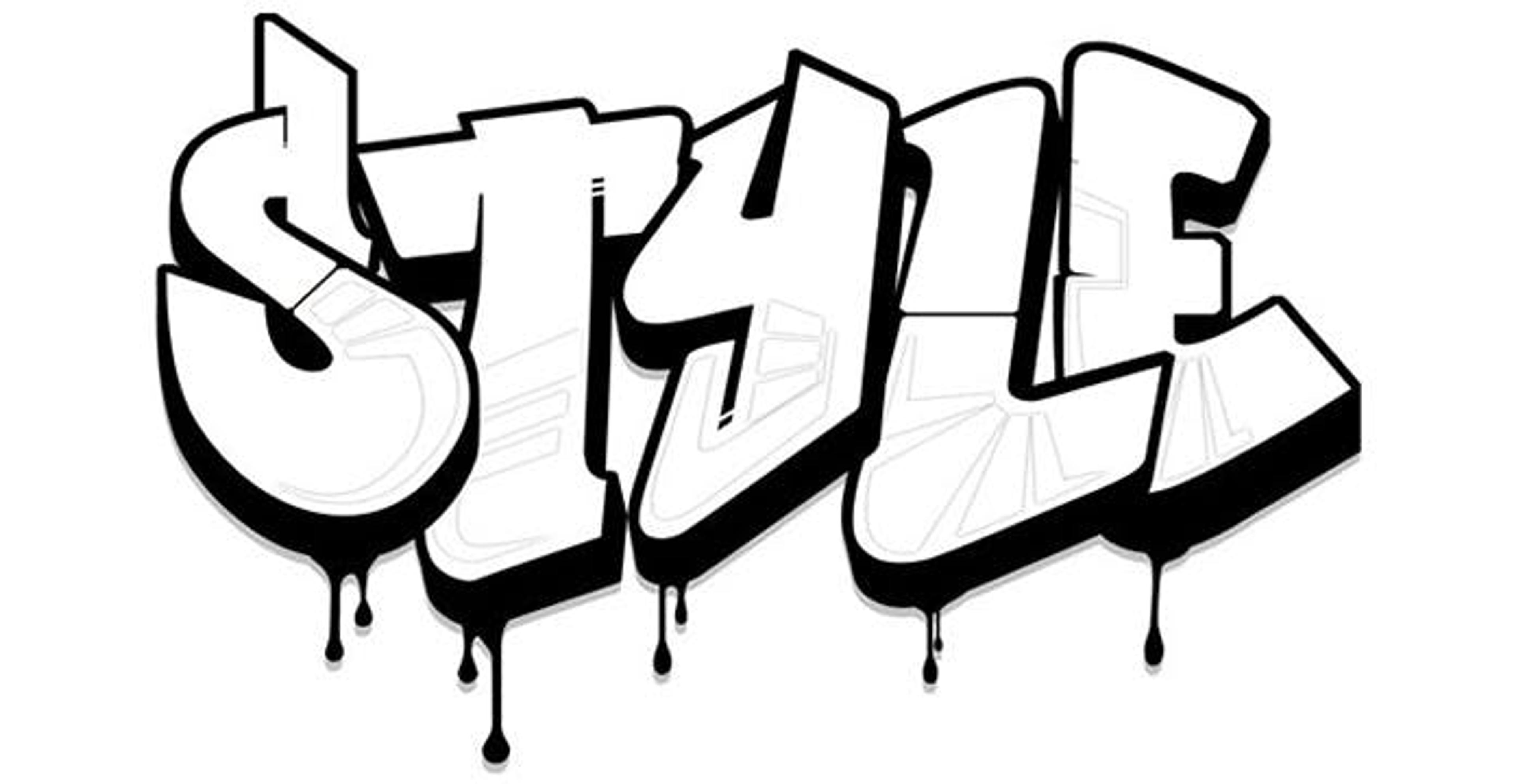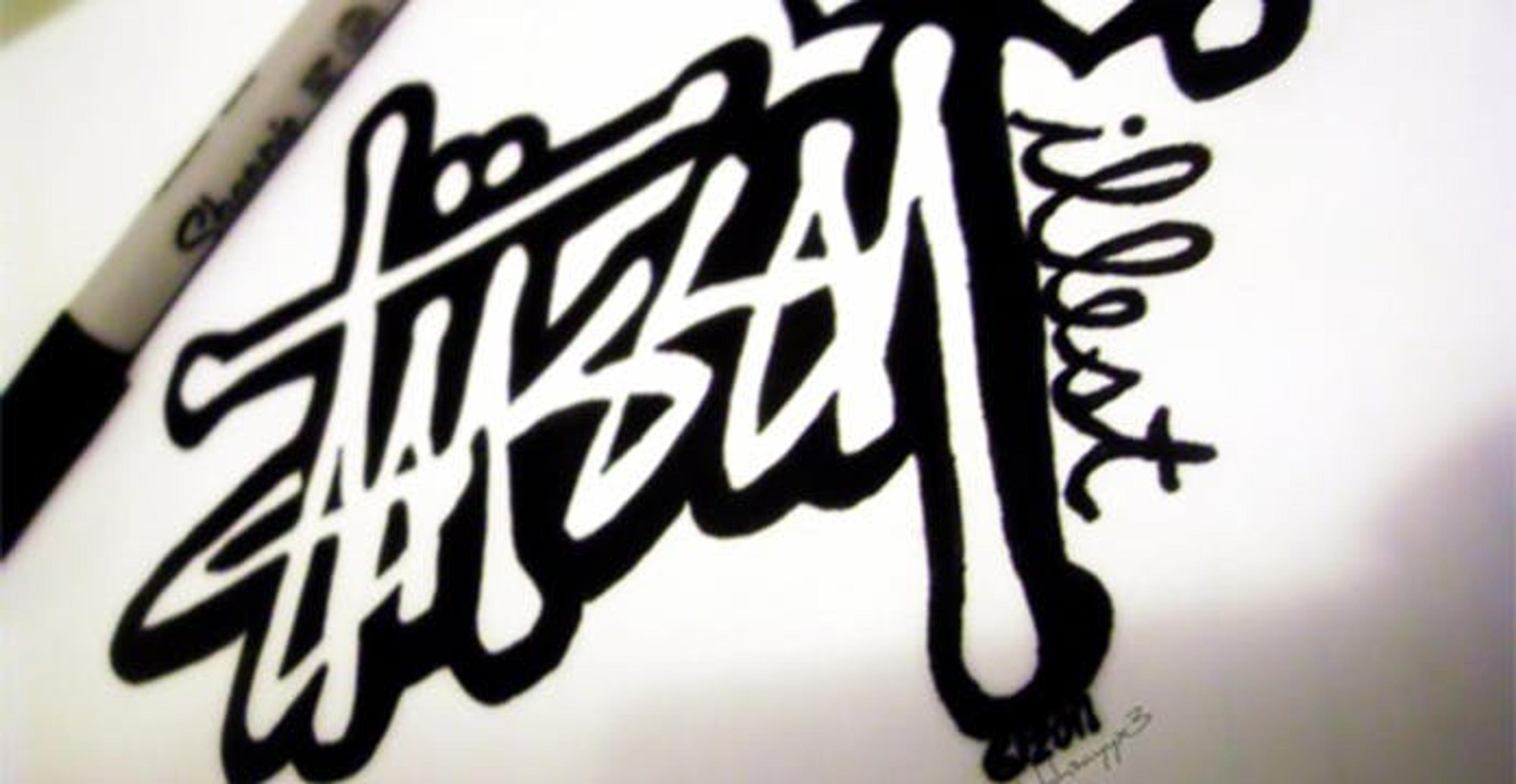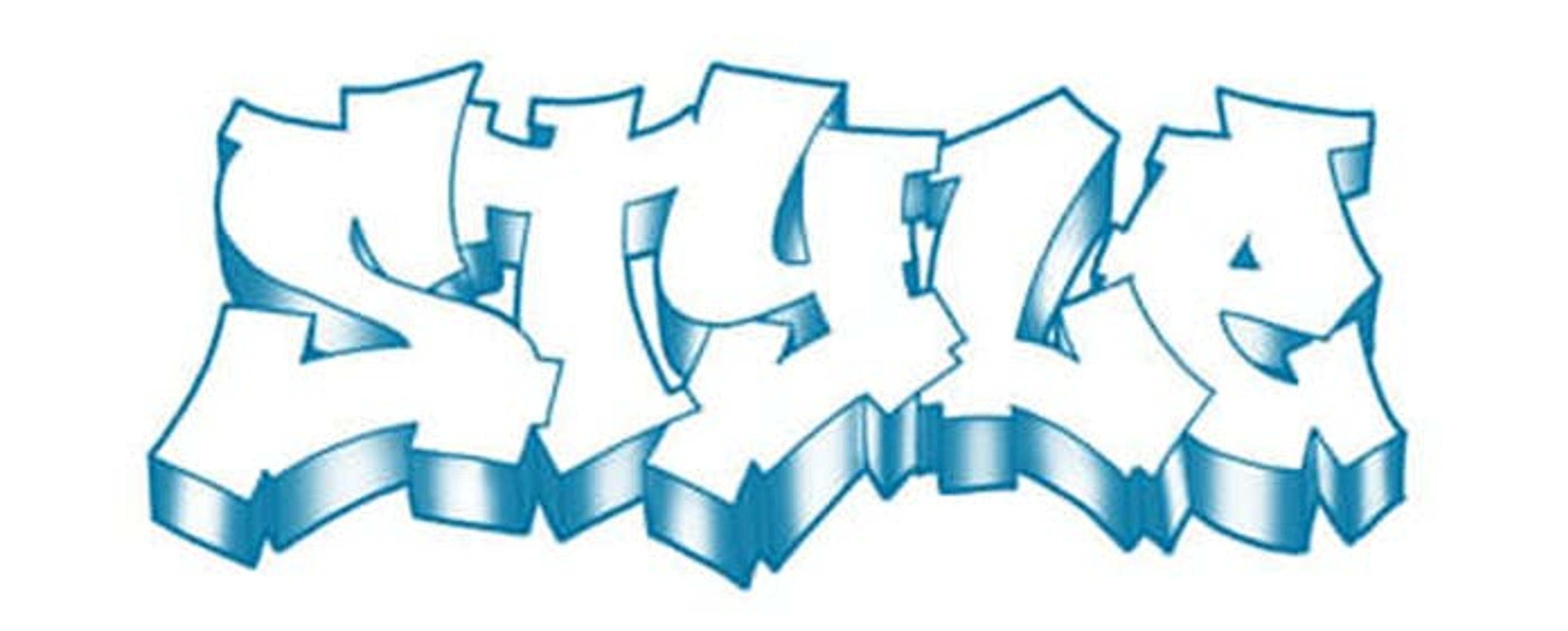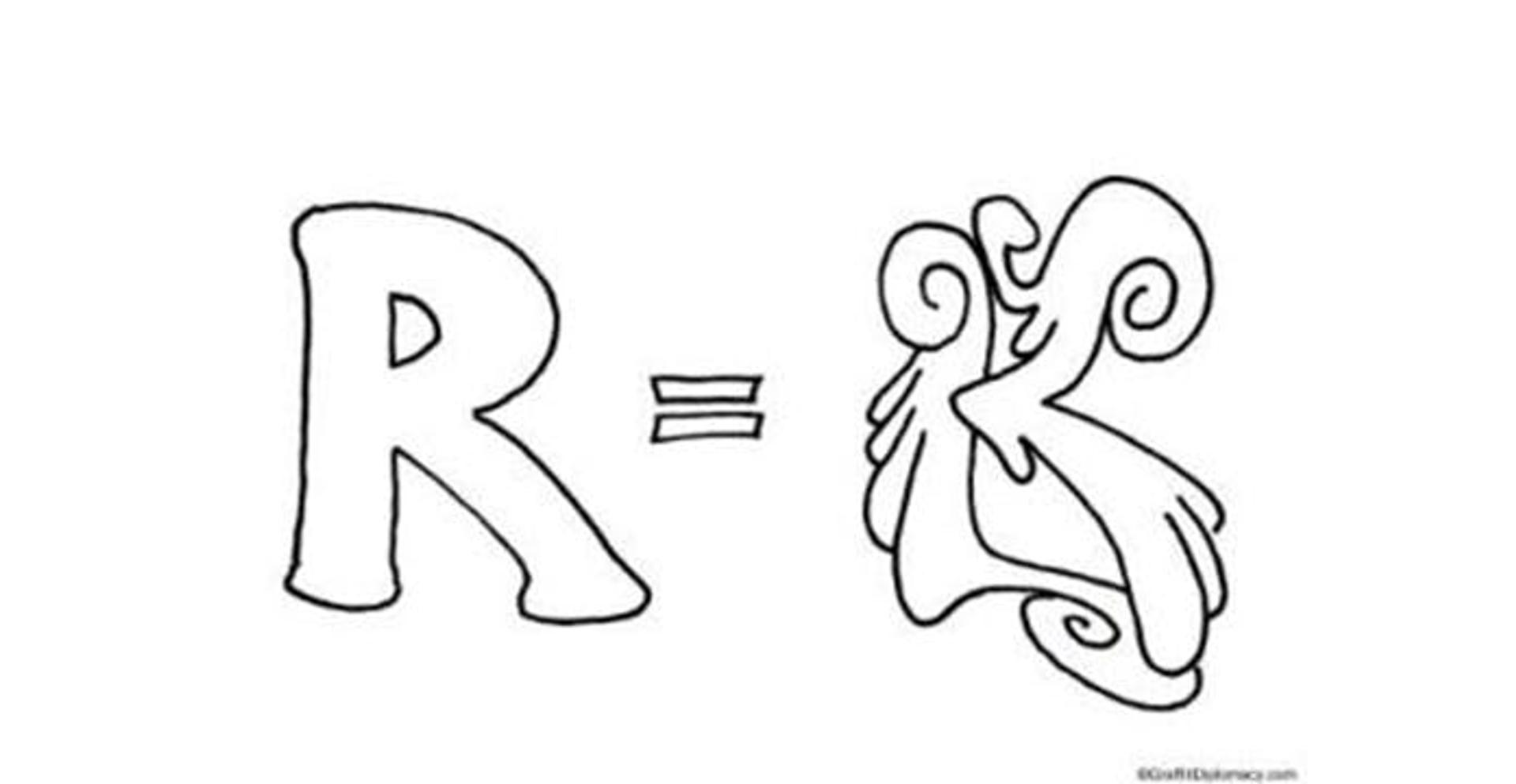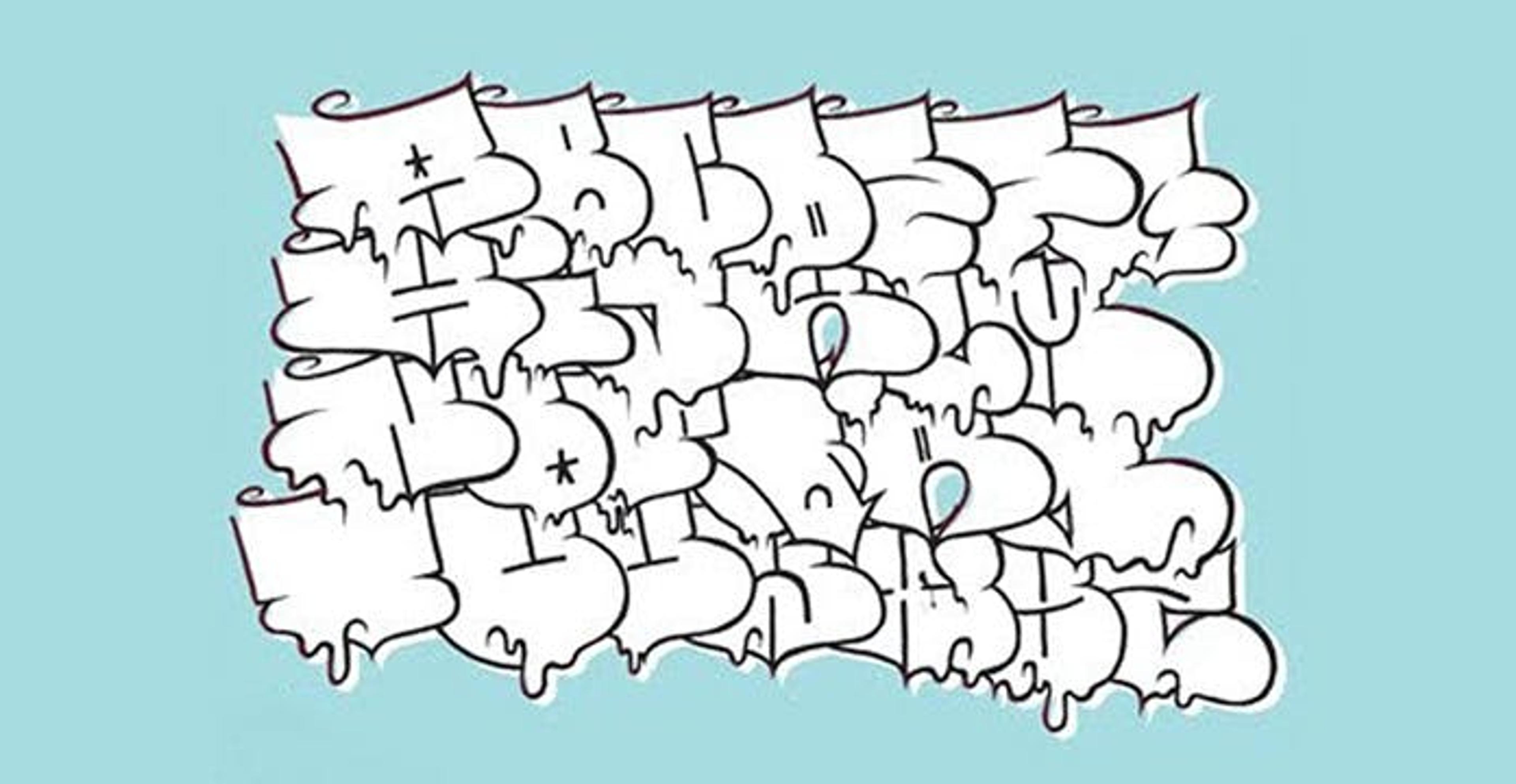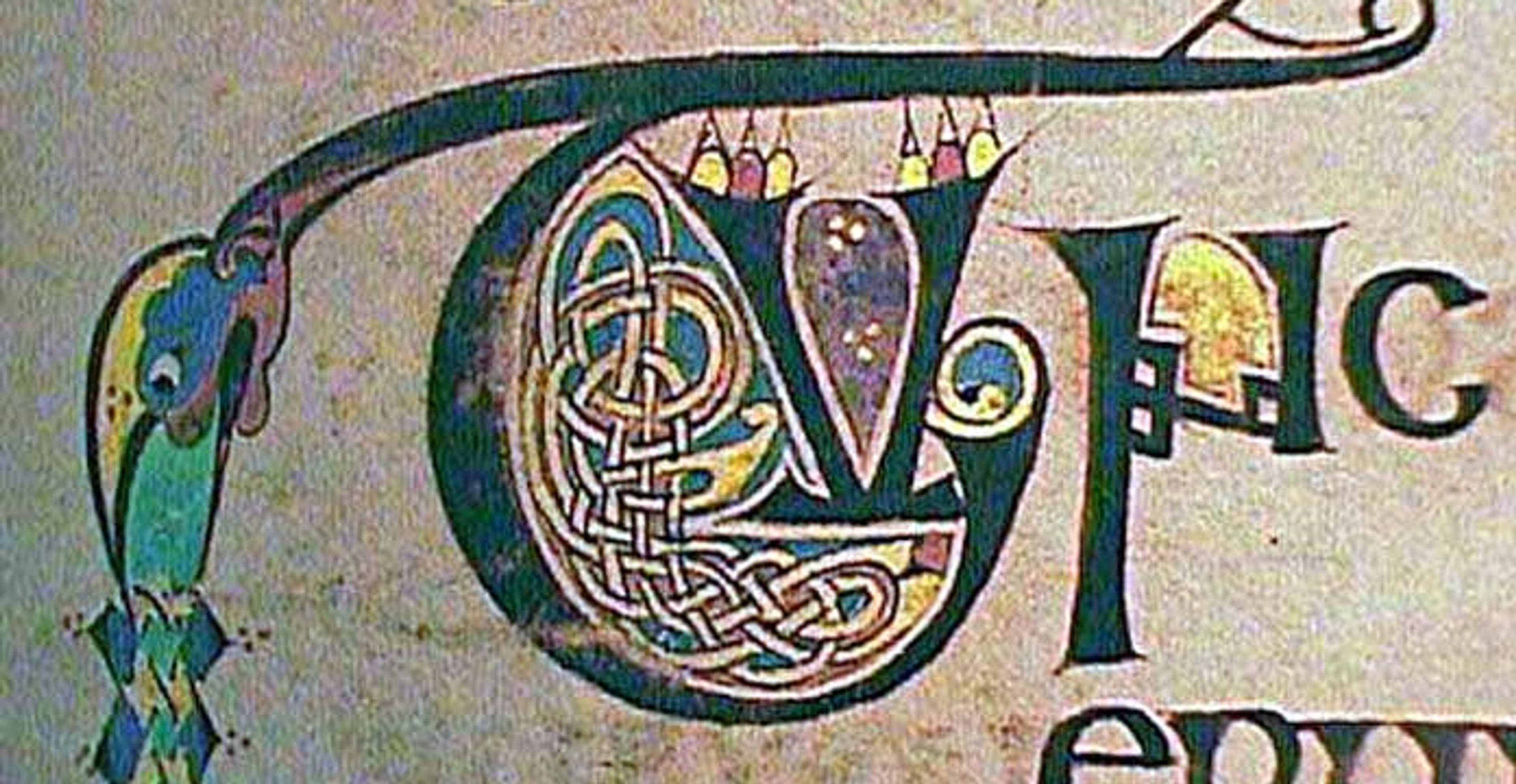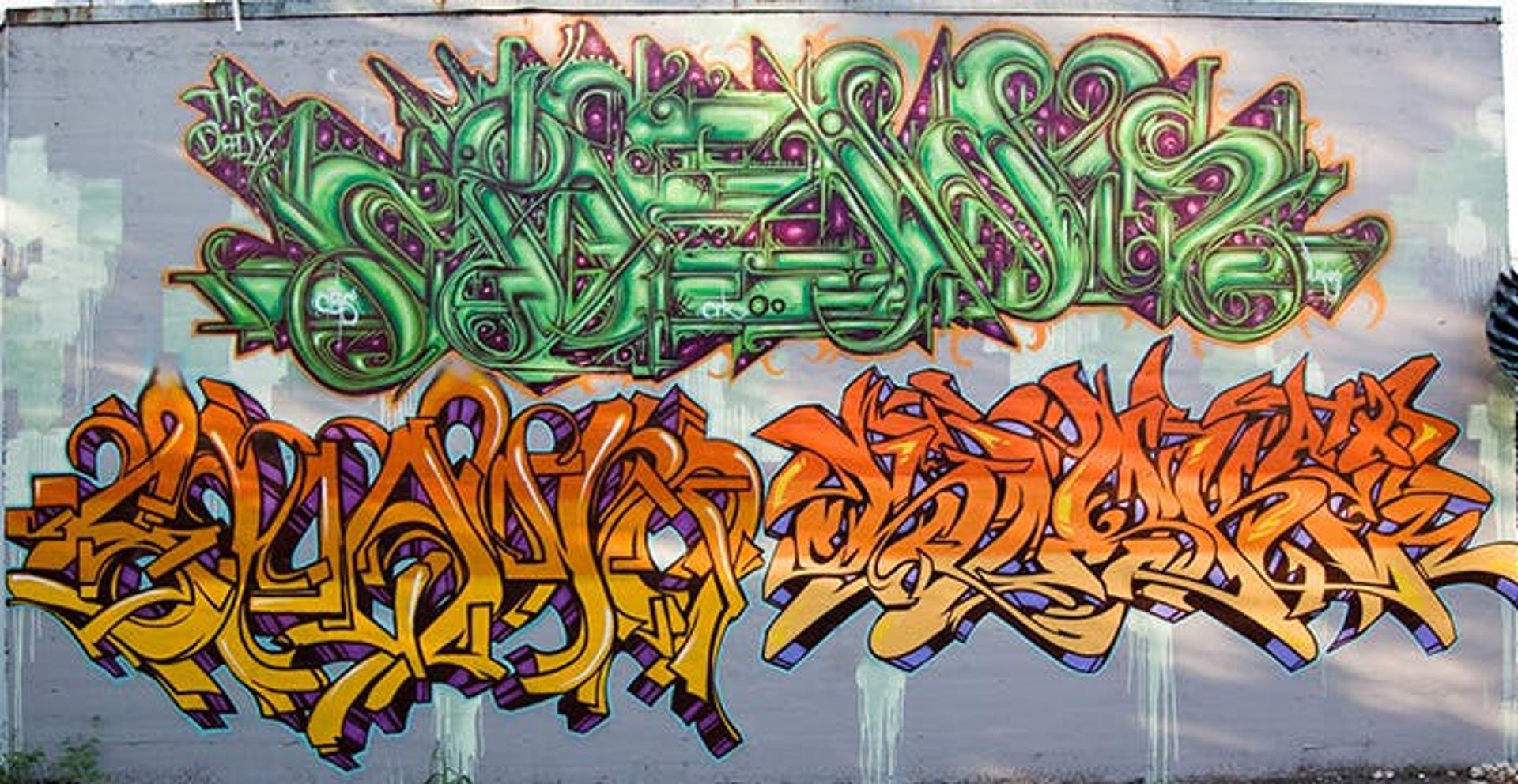
Designer’s Guide to Graffiti Fonts
In many ways, graffiti is humankind’s earliest attempt to leave its mark on the world. By some accounts, we’ve been doing it for nearly 40,000 years. From the charcoal briquettes and crude tools of the prehistoric peoples of North America, ancient Egyptians, and the earliest manmade art in the caves of Indonesia, it has been a long road to the Sharpie markers and Krylon cans of modern man. But the intent of graffiti has never changed: “I exist! Look at me!”
The Greek word, graphein, means to write. But our modern use of the root in “graffiti,” has a much greater context.
The clandestine, illegal, and sometimes gang-related origins of modern graffiti and street art make it taboo to much of the art world, but in recent decades, the form has transcended the realm of crime into city-funded beautification programs, marketing campaigns, and is now recognized as a bonafide art form.
What could be better for your design than the artform that developed out of man’s need to leave his mark, capture attention, and depict a message? Here’s our guide to graffiti fonts that you can use in your own designs:
Just another font?
Many online articles and books on the subject trace the origins of modern American graffiti writing back to the 1960s—some even to the streets of Philadelphia (the home of Rush Order Tees). Most graffiti letterings take the ornate, but slightly stuffy style of calligraphy, and humanizes, animates, and exaggerates it into a voluminous, pulsing writing that borders on iconography.
Tagging, bombing, or whatever it is you call graffiti writing, is attention-grabbing. From brick walls to train cars, the beating life behind graffiti writing captures more attention than Times New Roman and Calibri. The canvases of graffiti artists are often larger than the front of a t-shirt, but the dynamic lettering is still effective when scaled down.
Options
As long as you promise to keep it legal, Rush Order Tees has compiled some examples and descriptions for some of the coolest, most dynamic graffiti styles available. As styles change from artist to artist, we are featuring a few of the basic stylistic forms inherent in all graffiti writing.
Tag Inspired
The tag style is Graffiti 101—consider it like learning how to write your name. That is its origin. Tagging is a quick and basic stylized form, but it’s not just a novice’s attempt at vandalizing a high school bathroom stall. Although the tag style is composed of letters, it becomes an icon for the artist—a calling card, a signature, a brand.
Tag-inspired text can go a long way. Renowned streetwear brand Stussy‘s logo is actually the signature of the brand’s founder, Shawn Stussy. Stussy and his assistant Christian Anicete began selling custom-designed surfboards in the early 80s, each of which Stussy signed with a wide-tipped marker. He soon began putting this logo onto t-shirts, hats, and other apparel and selling it out of his car. So began the brand and recognizable logo that exist today.
Throw-ups
No, it’s probably not what you think from the subheading. We’re talking about another general style that is a bit more ornate than a tag. Bombs are basically like tags, with the sides blown out. They utilize bubble letters, and include two or three colors for outline, fill color, and shadowing.
Many effects are added to basic tags and throw ups to give them more magnitude and animation. Here are some of the basics:
Drips: These mimic the heavy spray of a can. They add movement and gravity to the piece.
Shadow Letters: These give depth and perspective to either bubble or block letters. The use of shadow letters takes the one-dimensional surface, and pushes the piece out toward the viewer.
Fat Cap: Just as they sound—writing from a fatter (wider) orifice on the actuator (basically, paint comes out of the can through a bigger hole). It can soften tags and sharp edges.
The only risk as we get more stylized in our graffiti writing is that the images become a bit more abstract. Check out 1001 Fonts for a more simplified version of a basic throw-up font. Now, let’s enter the big leagues in terms of abstracting your graffiti writing.
Wildstyle
If you consider tagging as a bachelor’s degree and throw-ups as a master’s, then wildstyle is the PhD. Wildstyle occurs when an artist pursues aesthetics into the hazy world of abstraction. How do you get to wild style? Through something called letter progression.
Here’s a basic example of how the letter “R” can come out in wildstyle:
When you really break it down, it is not all that different from the initial (also called a drop cap) in classical and medieval prints.